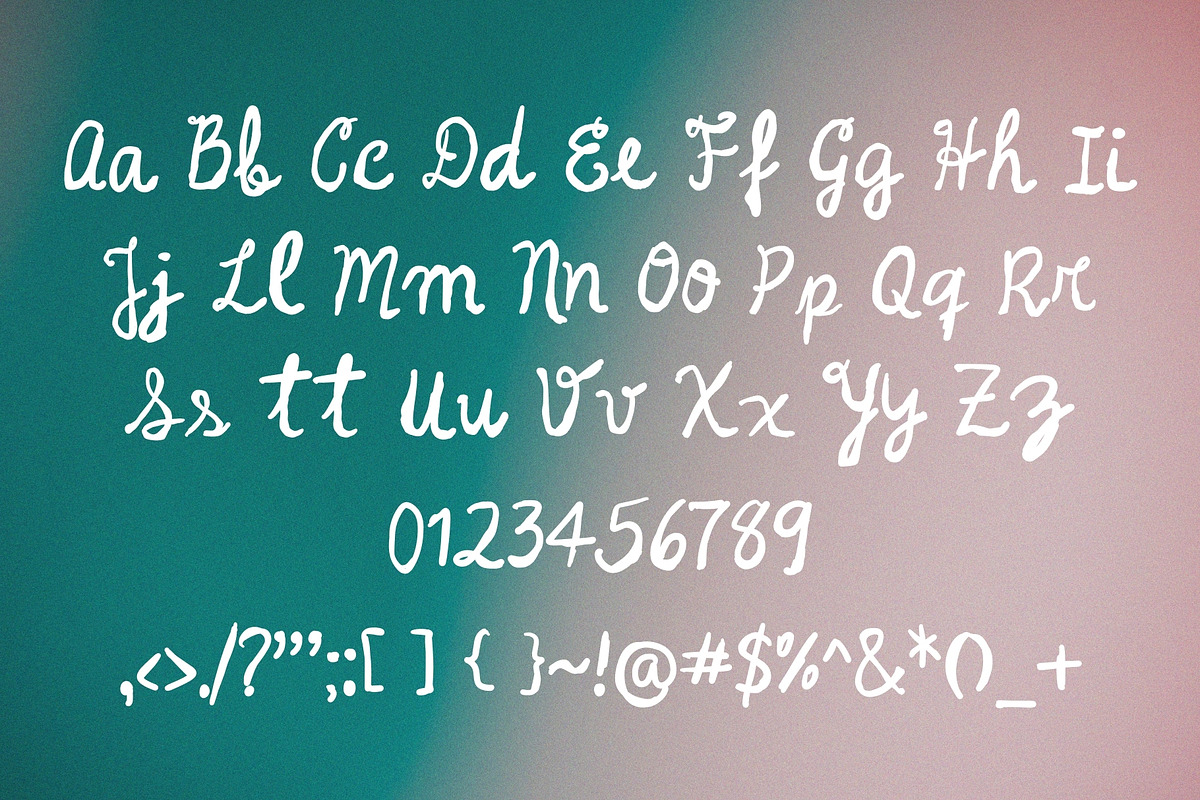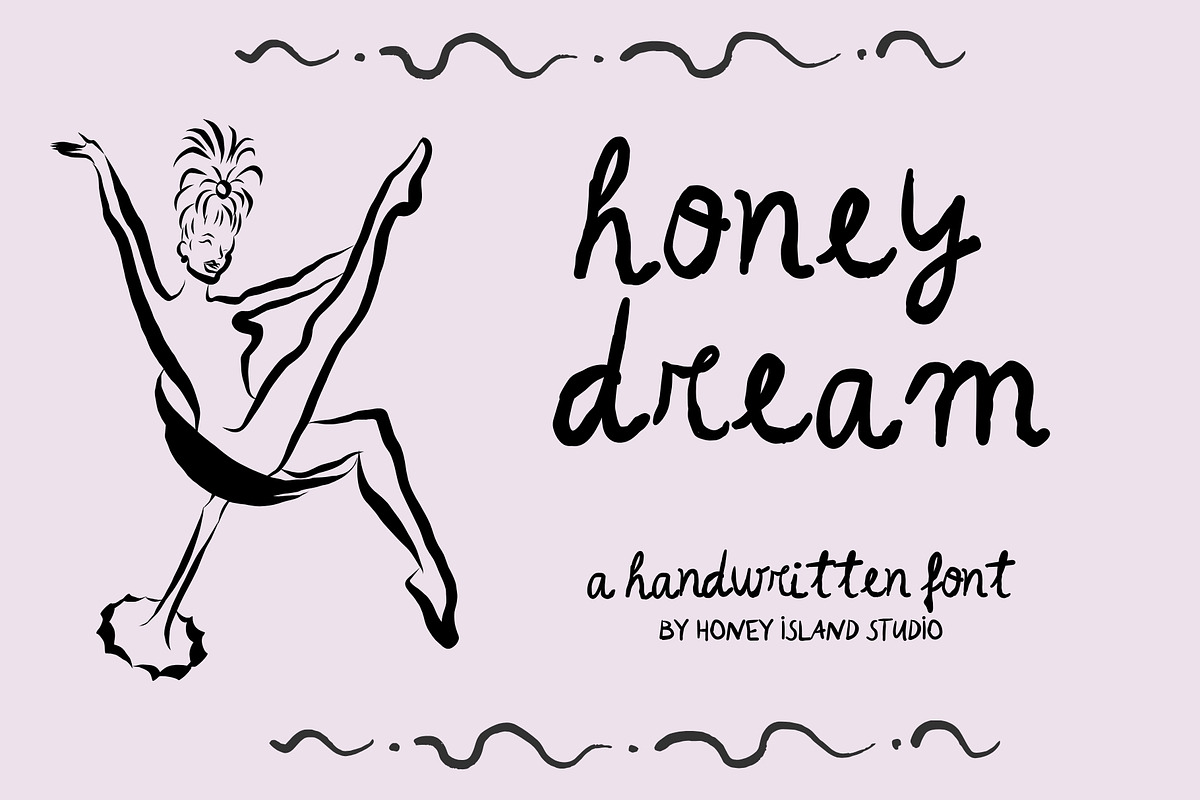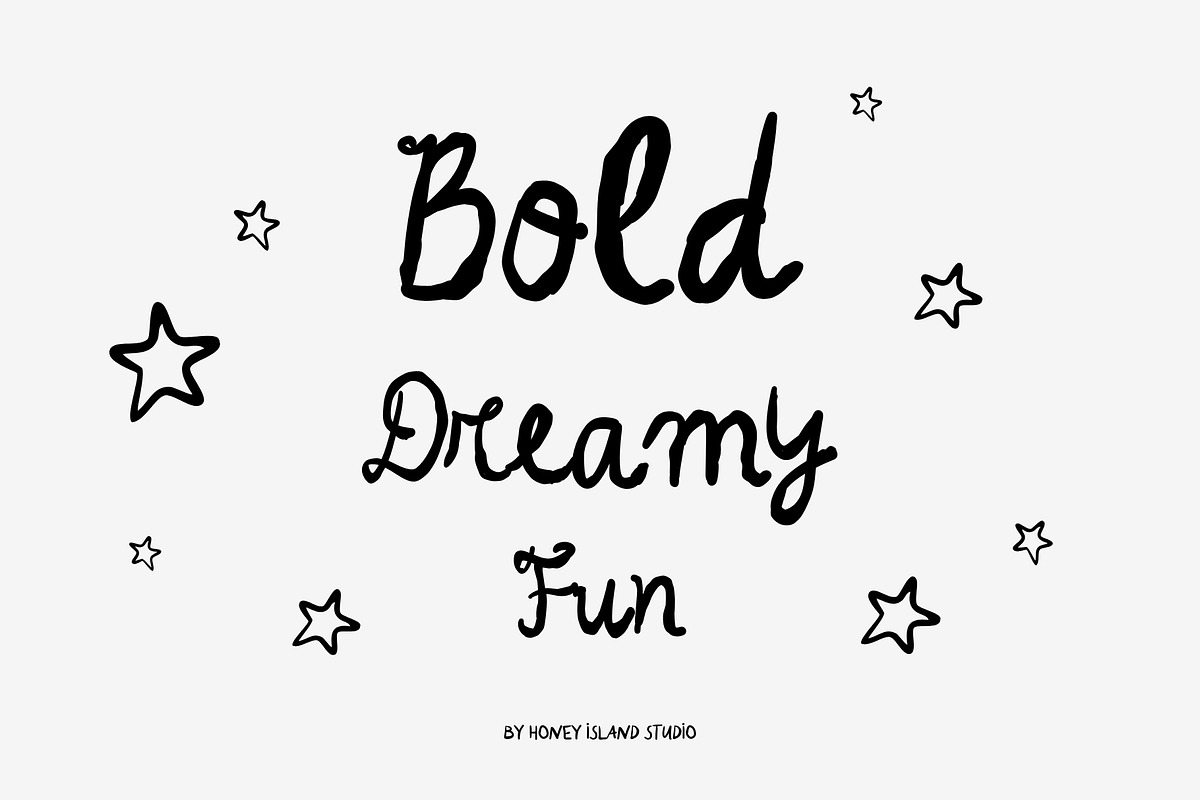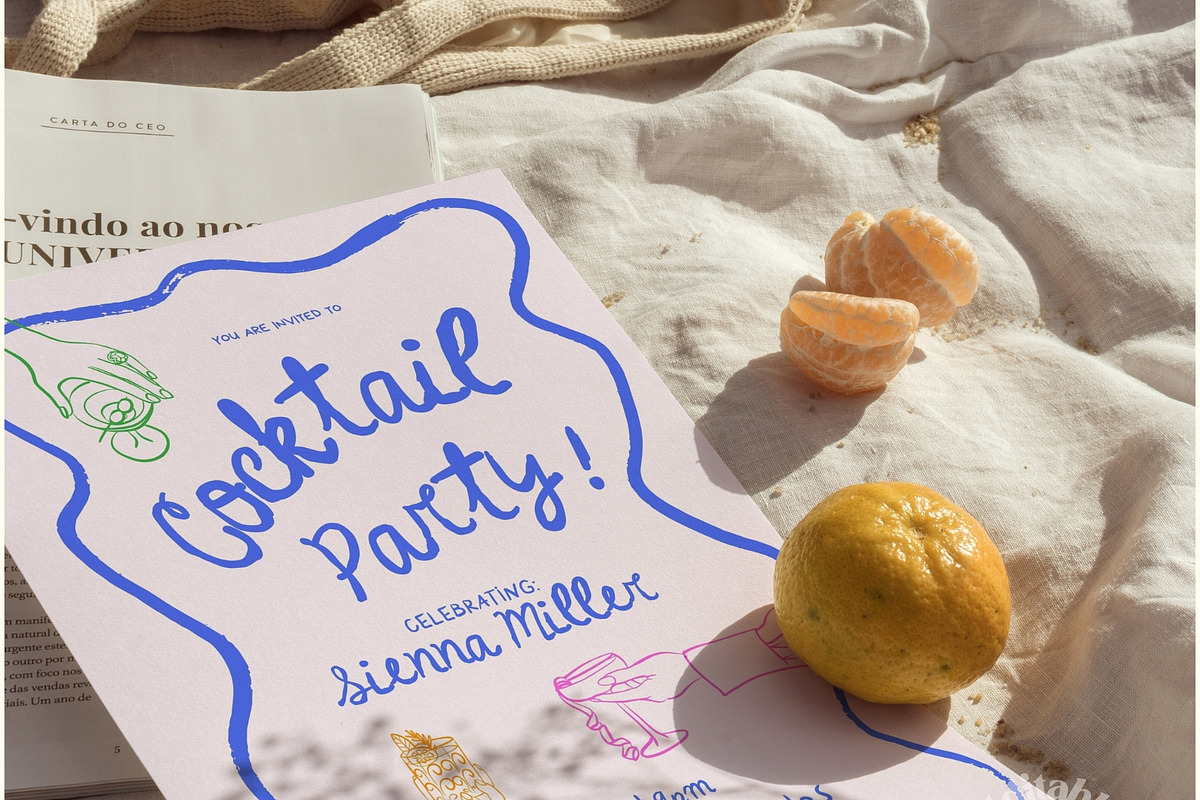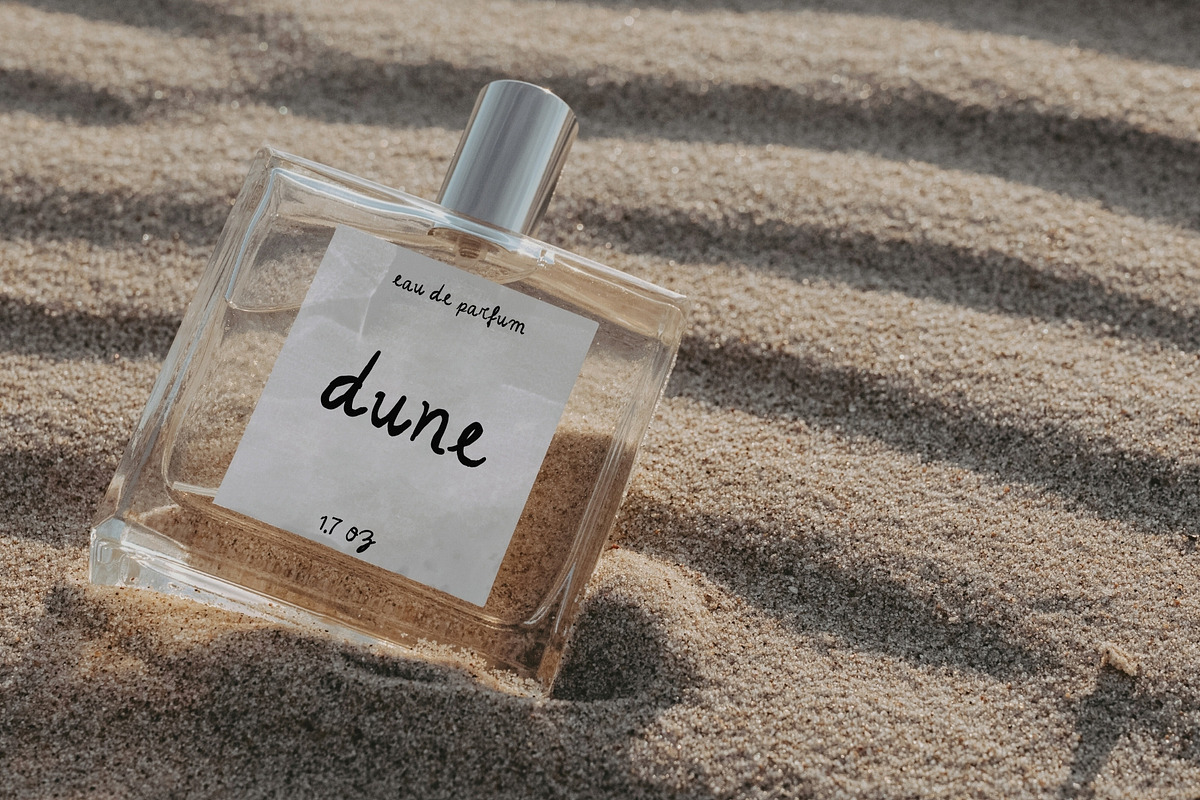
Honey Dream Script Handwritten Font
Honey Dream Script Whimsical Handwritten Font
Honey Dream Handwritten Font is a whimsical and dreamy typeface that captures the essence of playful, handwritten charm. With soft, flowing strokes and a touch of elegance, it brings a personal and enchanting feel to any design. Perfect for creative projects, this font adds a sweet, lighthearted touch to everything from invitations to branding.
Whether you're crafting invitations, branding, or digital art, this font will bring your vision to life with its playful elegance.